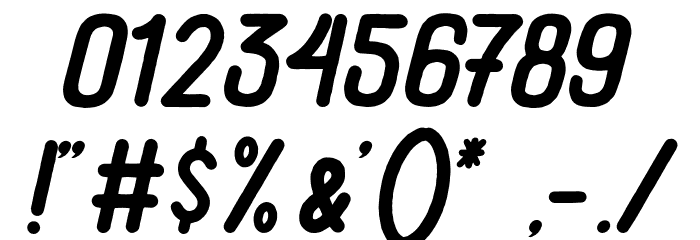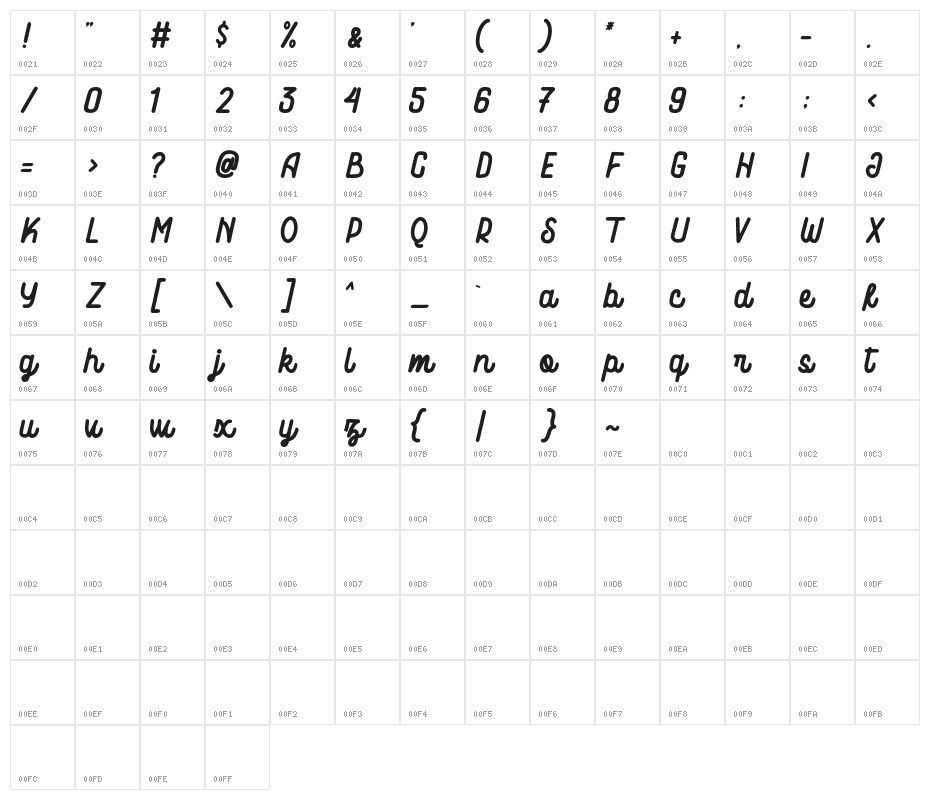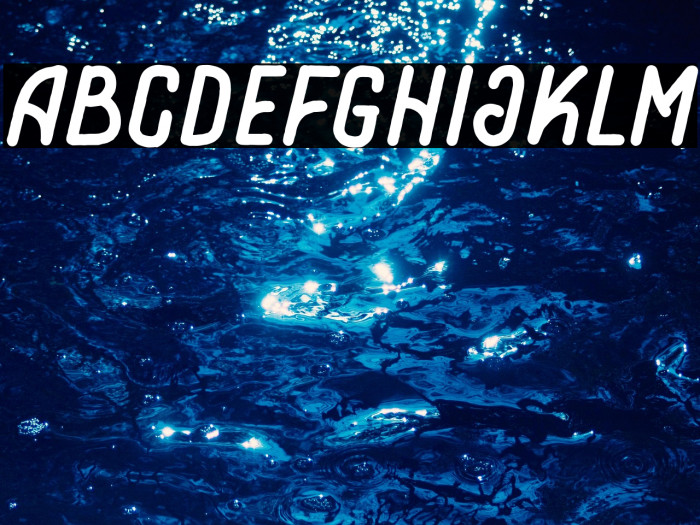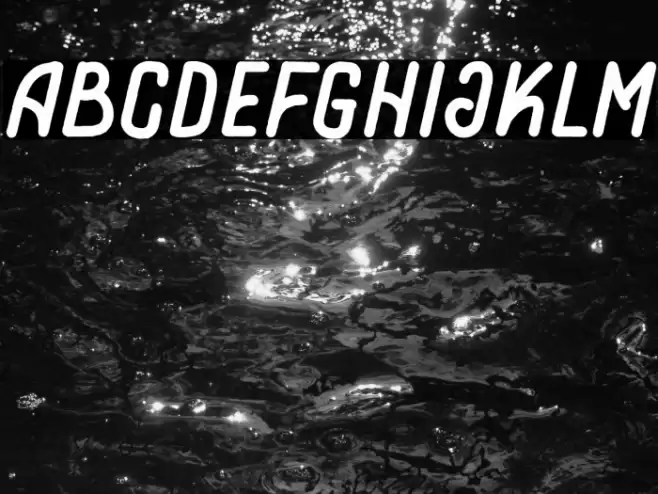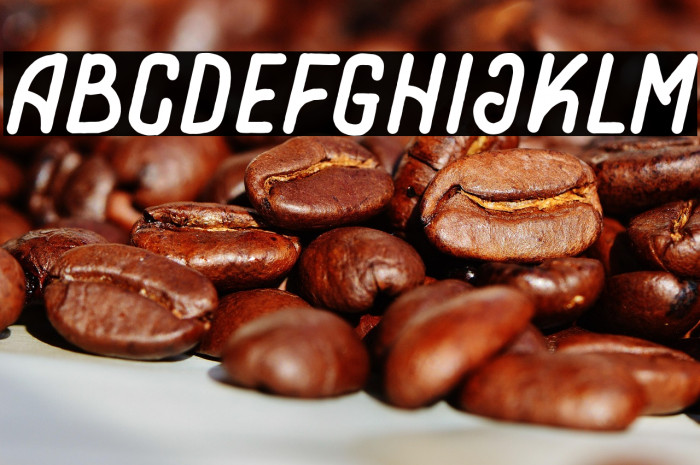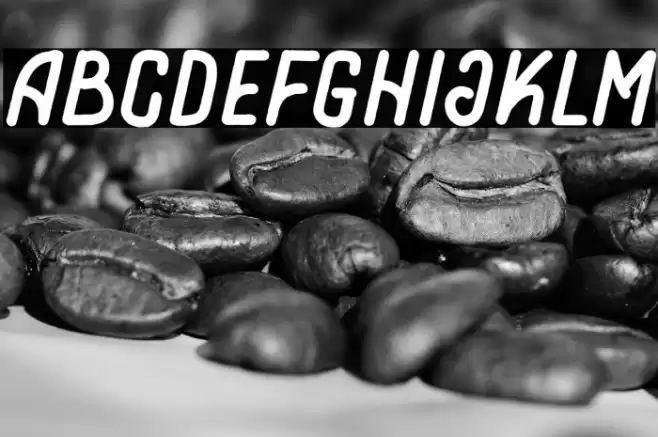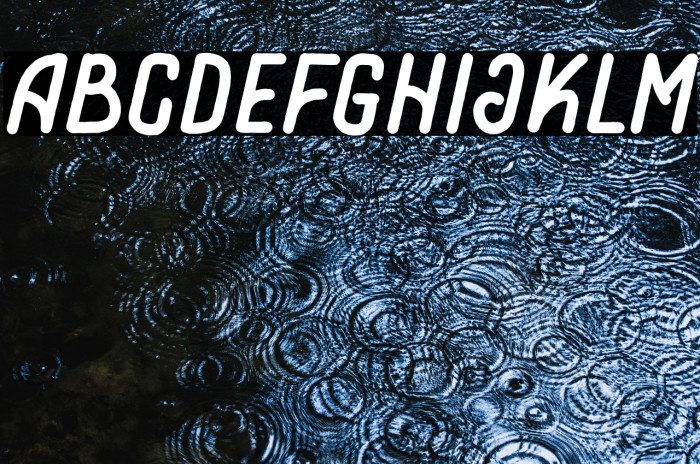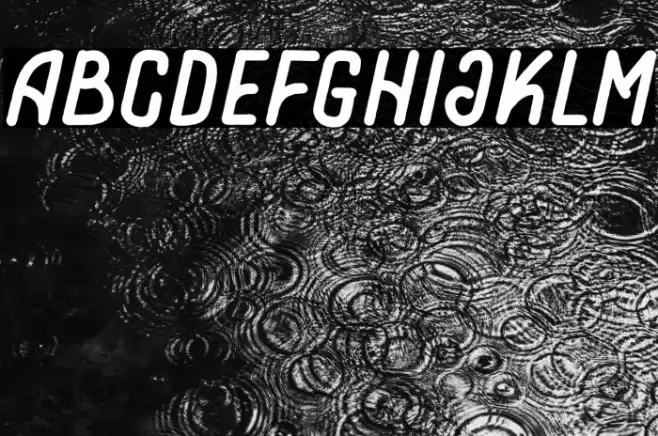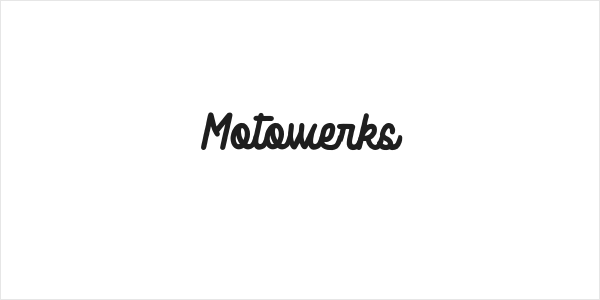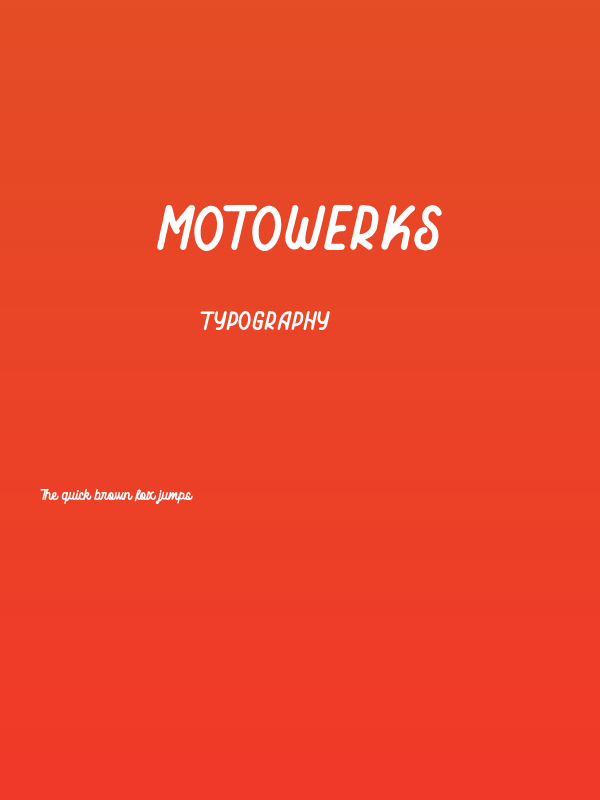
Motowerks Font
Motowerks Description
This font features a bold, flowing script style that combines elements of both cursive and print. The characters are connected, giving it a smooth and continuous appearance, reminiscent of handwriting. The uppercase letters maintain a consistent height, while the lowercase letters have a slight slant, adding to the dynamic feel. The numbers are bold and clear, ensuring readability. Special characters are designed to match the overall style, maintaining the fluidity and boldness of the font. This font is ideal for projects that require a personal touch or a sense of elegance and creativity.
| Proposed Projects | Ideal for invitations, greeting cards, branding, and creative projects requiring a personal touch. |